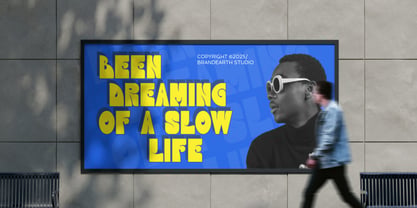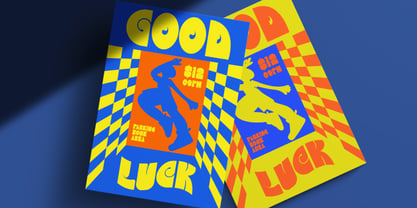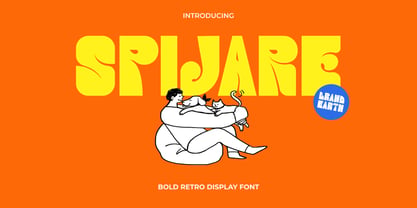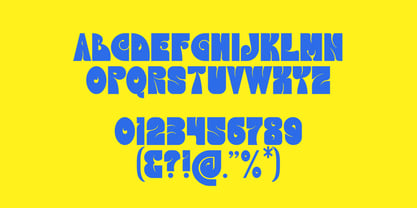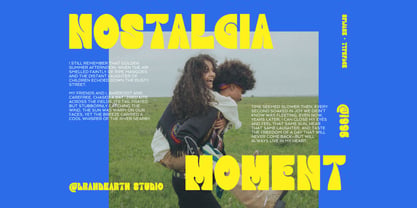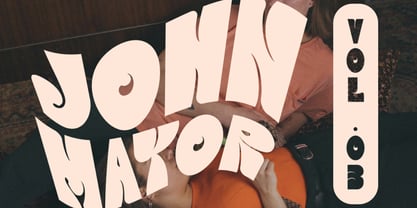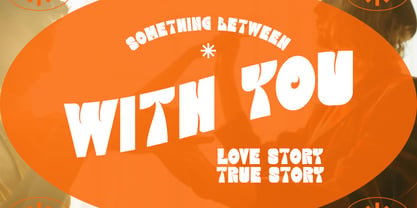
Spijare
by Brandearth
The Spijare Font Family was designed by Moch Rasjid Wiyono and published by Brandearth. Spijare contains 1 styles. More about this family
Spijare is a bold retro display font featuring chunky shapes, soft curves, and playful cut-in details that create a strong vintage personality. The letterforms are thick, rounded, and expressive, designed to deliver high contrast and eye-catching impact in large sizes. Relevance and Use Cases is perfect for posters, magazine covers, music artwork, café branding, fashion labels, social media graphics, packaging, children’s products, event promotions, and creative layouts that require a fun and nostalgic visual presence.